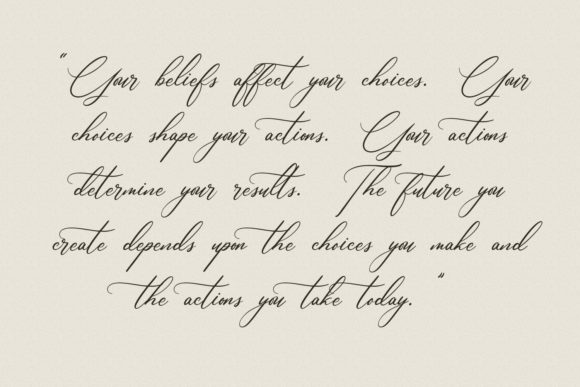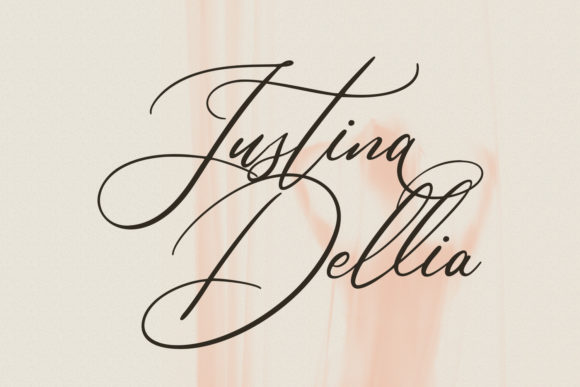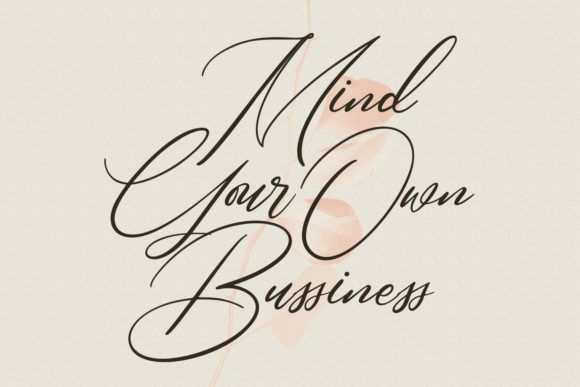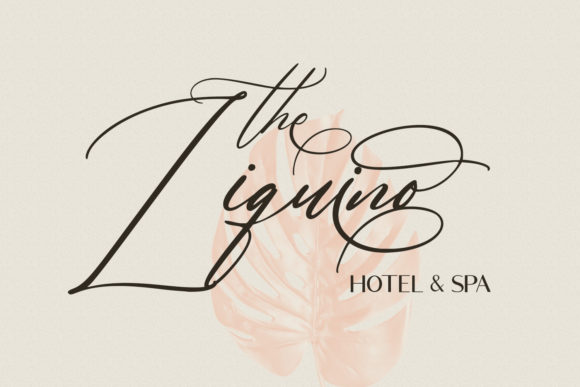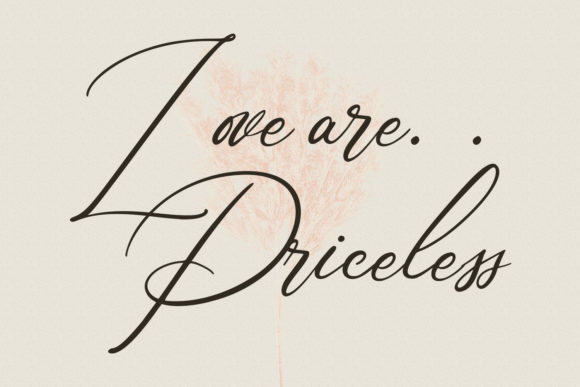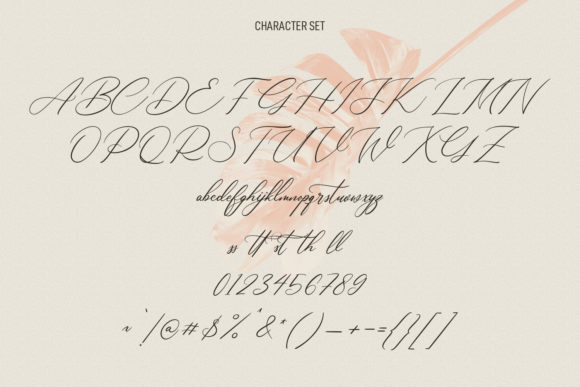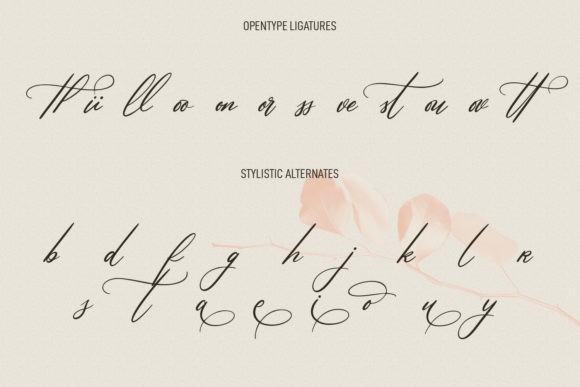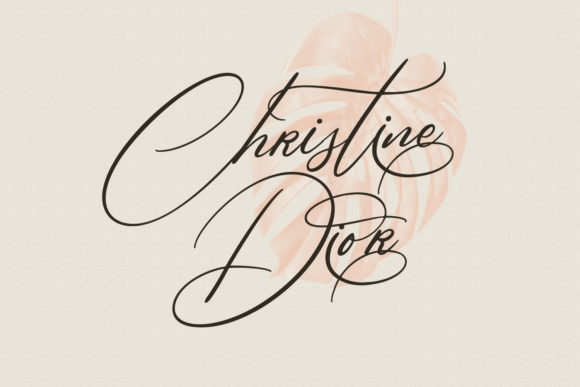
Astafloria Font
About Astafloria Font
Astafloria is a thin lettered and elegant script font. This versatile script font has a wide spectrum of applications ranging from greeting cards to headlines and is guaranteed to add a romantic feel to your next project.